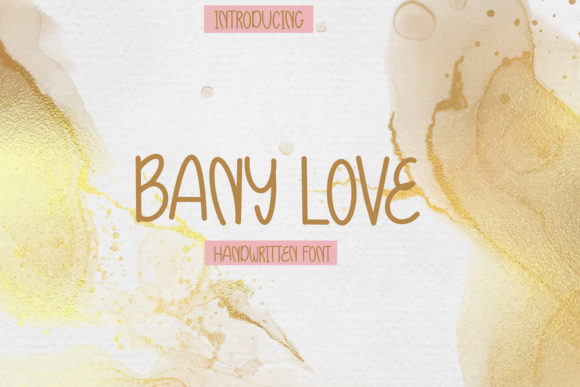
**Introducing Bany Love Font: The Perfect Font for Crafting Stunning Designs**
Immerse yourself in a world of captivating typography with Bany Love Font, an enchanting script font that will ignite your creativity and elevate your designs to new heights. This exquisite font, crafted with love by the talented Avadesing, exudes a charm that is simply irresistible, making it the perfect choice for adding a touch of playful elegance to your projects.
Let Bany Love's graceful curves and whimsical strokes dance across your designs, creating a symphony of visual delight. Its versatility knows no bounds, allowing you to effortlessly express your unique style and captivate your audience. Whether you're designing invitations, greeting cards, logos, or social media graphics, Bany Love will make your creations shine with a captivating allure.
Indulge in the sweet embrace of Bany Love's handwritten charm, and watch as your designs blossom into masterpieces that evoke joy and wonder. Its heartwarming strokes will melt away hearts, leaving a lasting impression that will make your creations truly unforgettable.
**Unleash Your Creativity with Bany Love Font Today**
Don't let your designs settle for ordinary when you can unlock the extraordinary with Bany Love Font. Its enchanting style and endless possibilities will empower you to create designs that leave a lasting impact. Join the legion of satisfied designers who have fallen head over heels for Bany Love's magical touch.
**Additional Benefits of Using Bany Love Font:**
* **Enhance readability:** Bany Love's carefully crafted letters ensure optimal readability, making your designs easy to digest and comprehend.
* **Convey emotions:** Express a wide range of emotions effortlessly with Bany Love's diverse character set, from playful and whimsical to heartwarming and sincere.
* **Stand out from the crowd:** Bany Love's unique style will make your designs stand out from the ordinary, ensuring that your creations leave a lasting impression on your audience.
* **Create a cohesive brand identity:** Establish a strong and recognizable brand identity by using Bany Love consistently across your marketing materials, social media platforms, and website.